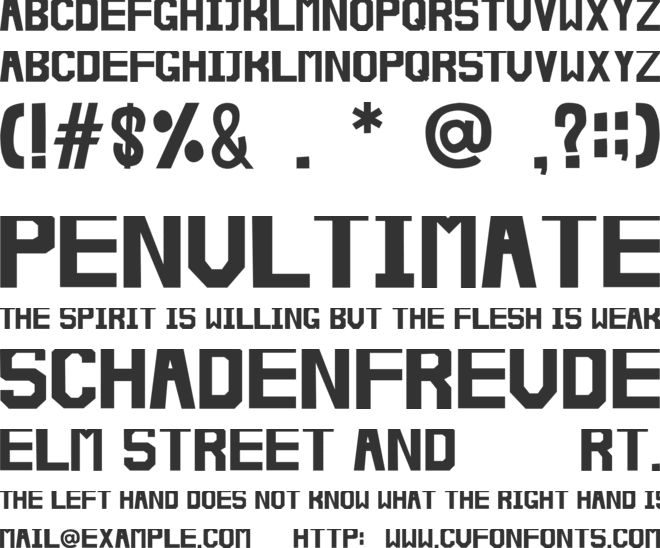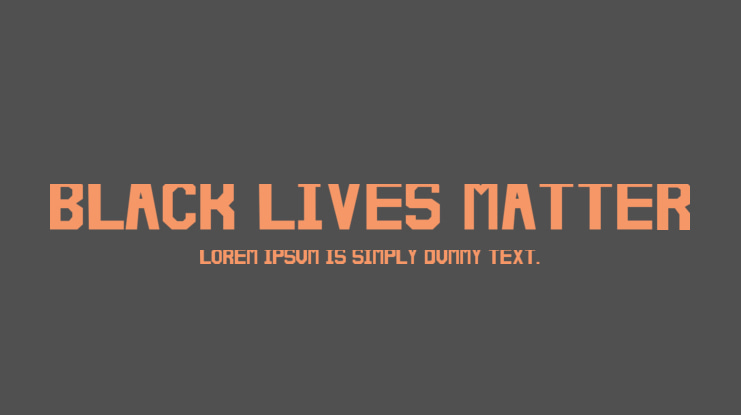
Black Lives Matter Font
On 6/5/20, a message of solidarity for #BlackLivesMatter was painted in front of the White House. Since then, many other cities across the U.S and even some abroad have followed suit. Unfortunately, as we saw in Martinez, CA over the weekend, people will go through great lengths to spew their hatred by vandalizing these city approved murals.
So, we preserved the message by turning physical murals into digital fonts: Black Lives Matter Font.
This font pack will be continuously updated, it currently includes fonts from the Washington, D.C., Oakland, and Martinez murals.
Black Lives Matter font preview